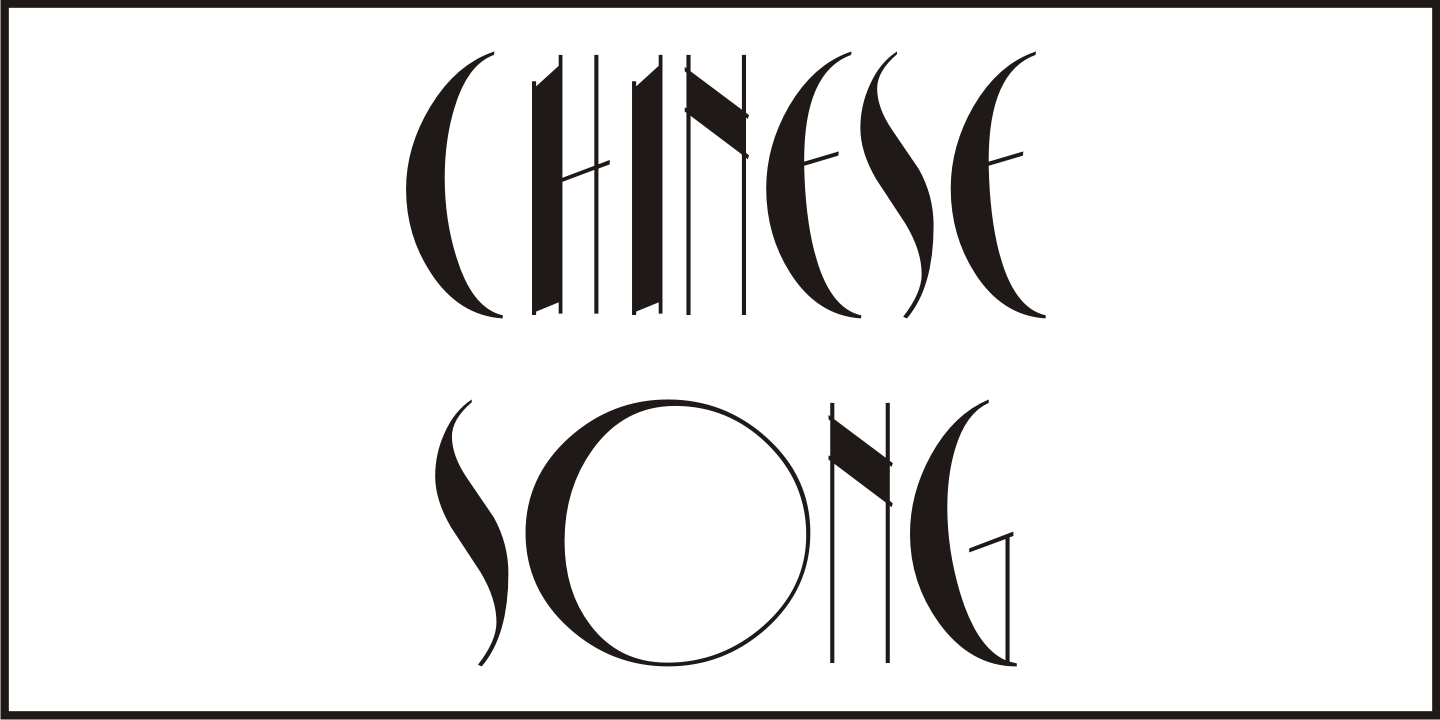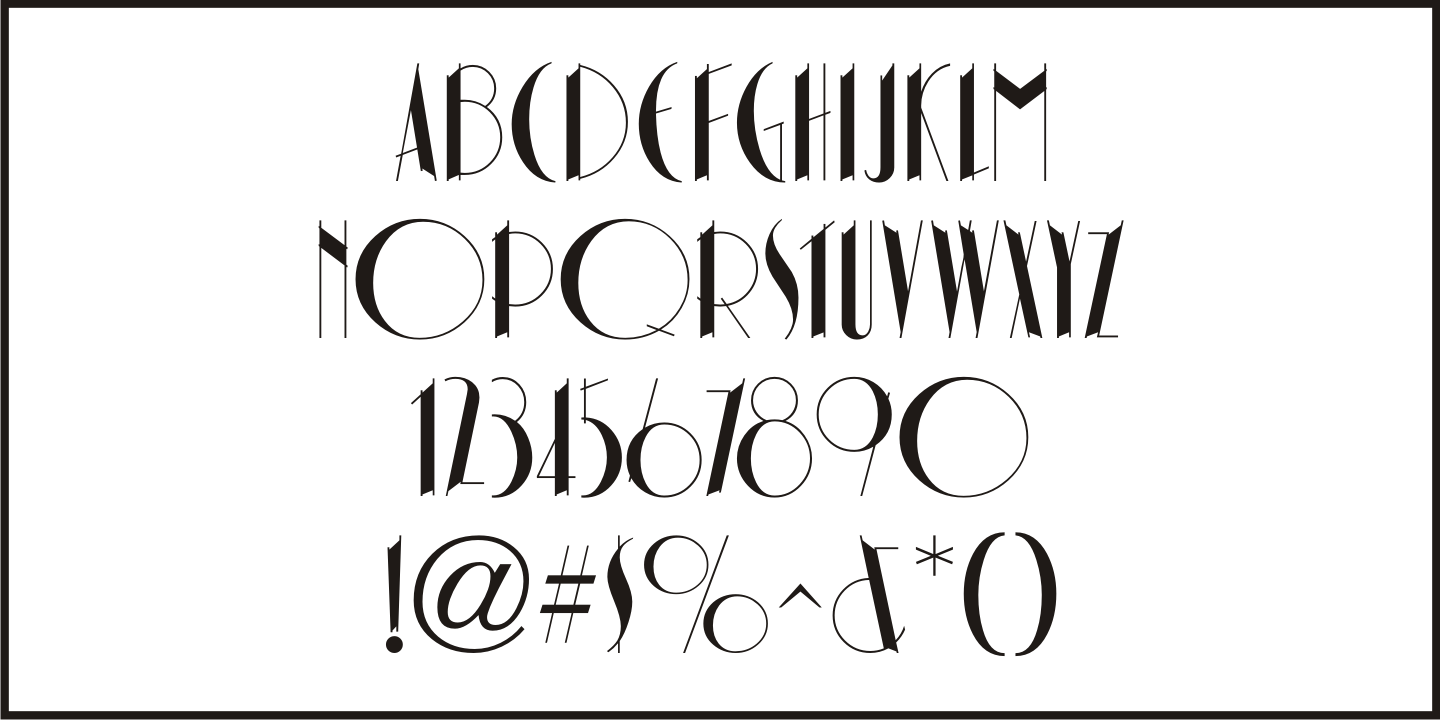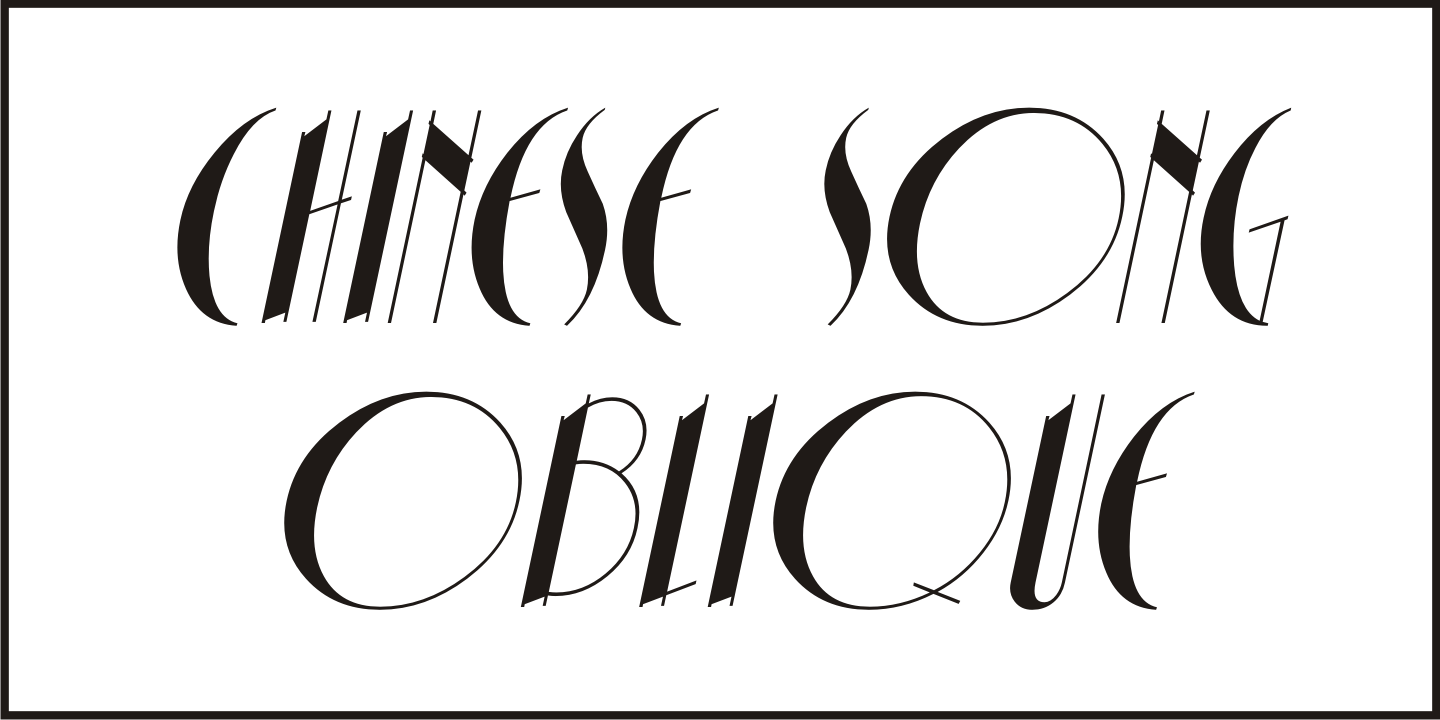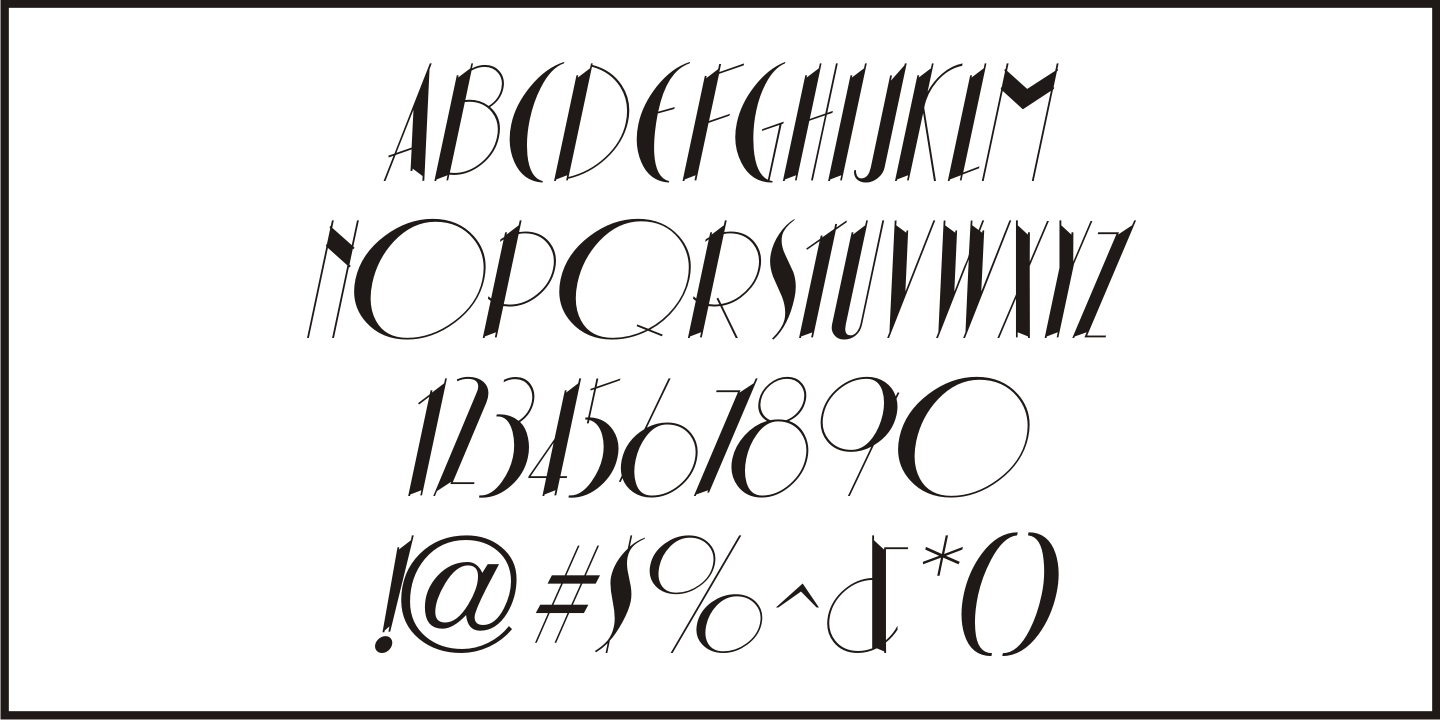
Chinese Song
The unusual hand lettering found on the 1945 sheet music for “Chinese Song” provided not only the design inspiration but the font’s name as well. A hybrid of Asian and Art Deco influences, Chinese Song JNL is available in both regular and oblique versions.
Chinese Song JNL Regular by Jeff Levine Fonts